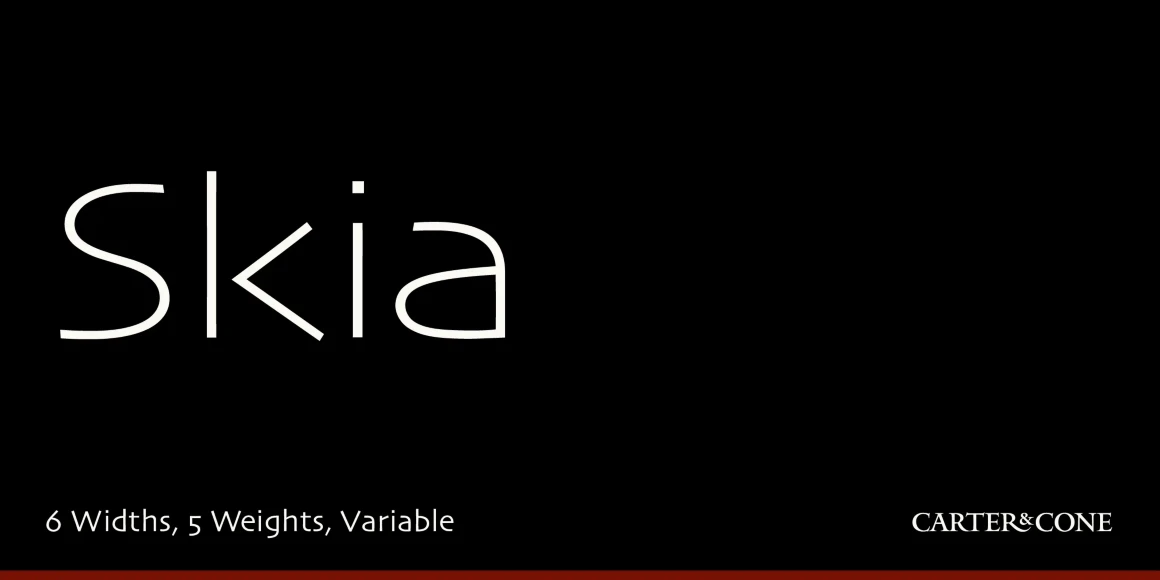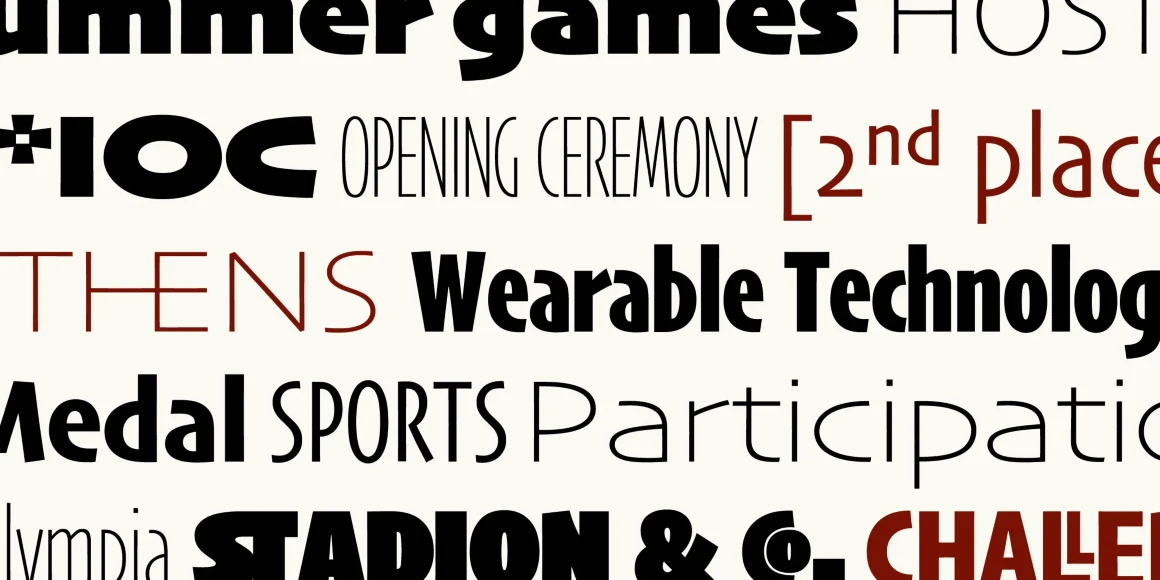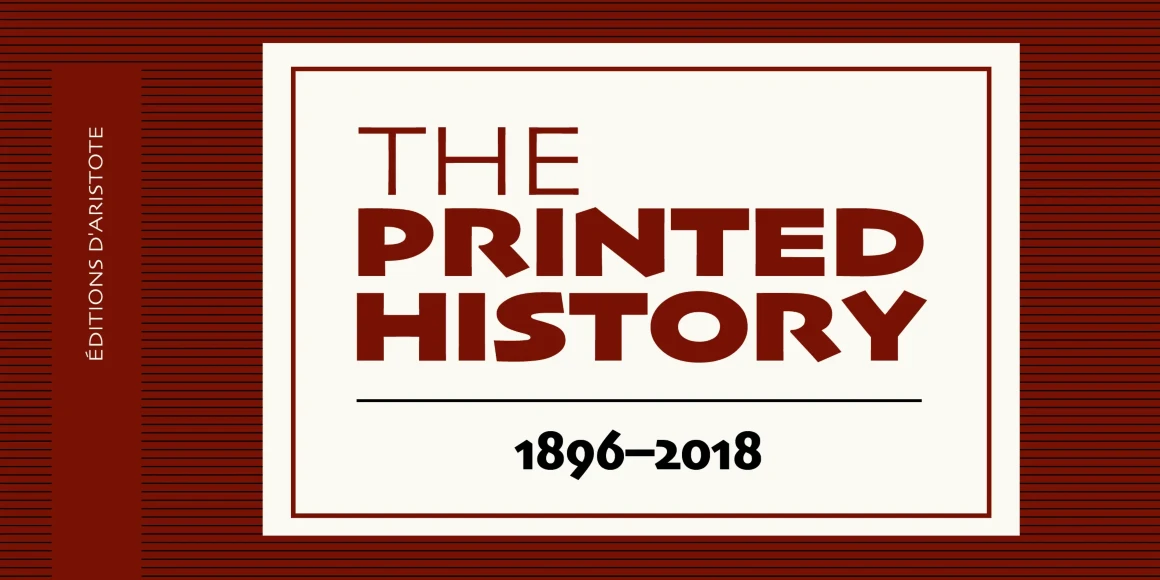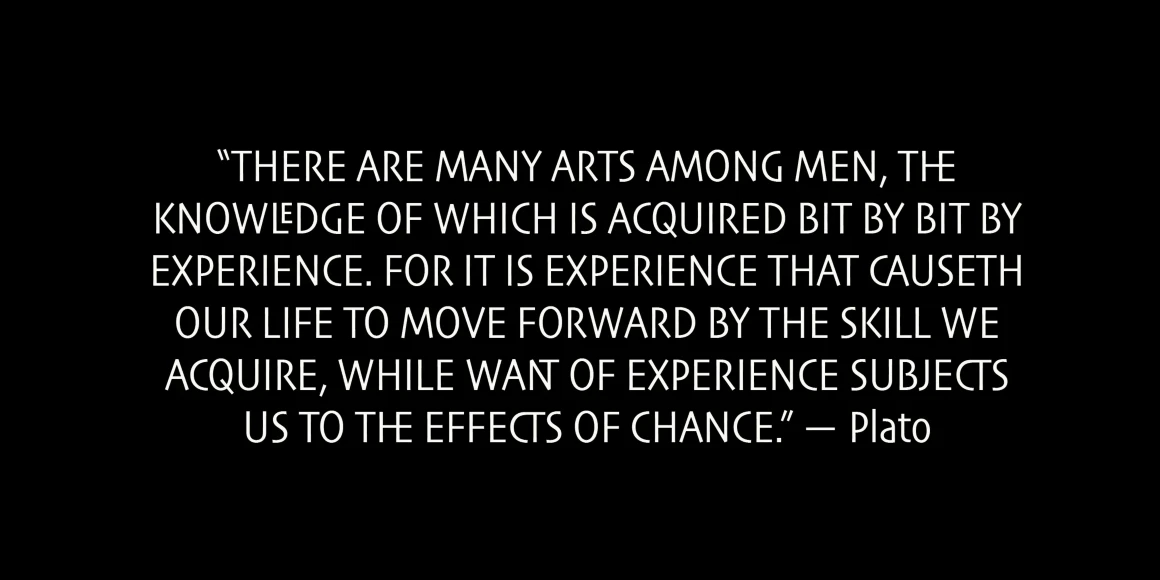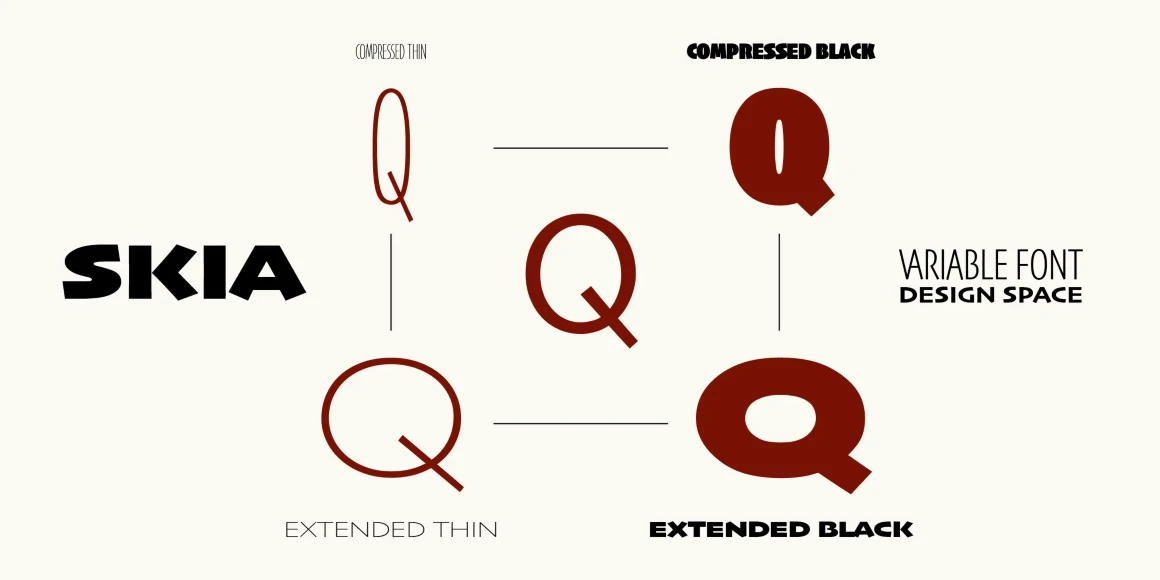
Skia CC
From Carter & Cone
Skia CC is a humanist sans serif initially designed by Matthew Carter for Apple Computer in 1994. It was the first of the QuickDraw GX fonts and the first single font to offer variations in design. The letterforms take inspiration from 1st-century Greek stone carvings. The family has a flexible range of use because of its open counters, large x-height, and distinctly angled terminals. The Type Founders updated and re-engineered the original data and it is now available in 6 widths and 5 weights or as a single variable font.